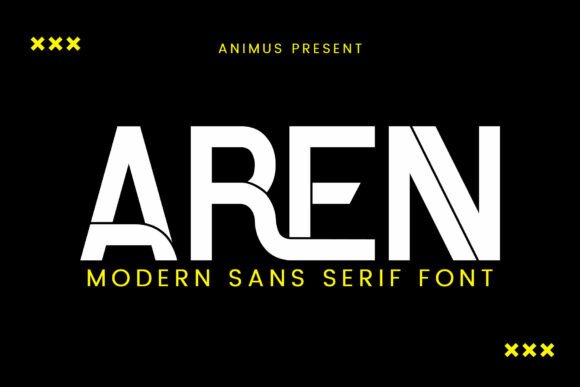
The Power of Arenn Font: Elevate Your Design with a Bold, Modern Sans Serif
I still remember the frustration of working on a project, hours spent crafting the perfect layout, only to realize that the font I chose just wasn’t cutting it. The client wanted something bold, something modern, something that would make their brand stand out in a crowded market. I was on a mission to find the perfect typeface, and that’s when I stumbled upon the Arenn Font. ✨
Designed to deliver a striking and progressive visual identity, Arenn Font is a bold, high-impact modern sans serif font that exudes a sense of seamless movement and contemporary precision. Its clean, geometric lines and balanced proportions make it an exceptional choice for tech-focused branding, industrial-style logos, sports marketing, and futuristic editorial headlines.
An Honest Review of Arenn Font
- ✅ Architectural strength: Arenn Font’s geometric lines and shapes give it a robust, sturdy feel that’s perfect for headlines and titles.
- ✨ Innovative letterforms: The font’s unique letterforms add a touch of creativity and playfulness to any design.
- 🔥 High-impact visibility: Arenn Font is designed to grab attention, making it perfect for bold statements and eye-catching headlines.
While Arenn Font is an exceptional typeface, there are a few minor quirks to be aware of: 🤔
- ⚠️ Limited legibility at small sizes: Like many bold fonts, Arenn can become difficult to read at very small sizes.
- ⚠️ Not ideal for body text: Arenn Font is best used for headlines and titles; it’s not designed for lengthy paragraphs of body text.
- Experiment with OpenType features, such as Stylistic Alternates, to add visual interest to your text.
The Designer Inspiration Behind Arenn Font
Arenn Font was designed with the goal of creating a bold, modern sans serif font that would meet the needs of contemporary designers. Inspired by the clean lines and geometric shapes of modern architecture, Arenn Font’s designer aimed to create a typeface that would exude a sense of seamless movement and contemporary precision.
Q: What is Arenn Font best used for?
A: Arenn Font is best used for bold headlines, titles, and statements where a high-impact visual identity is desired.
Q: Can I use Arenn Font for body text?
A: While Arenn Font can be used for short paragraphs of body text, it’s not ideal for lengthy blocks of text due to its bold and geometric design.
Q: Is Arenn Font suitable for digital interfaces?
A: Yes, Arenn Font is suitable for digital interfaces, including websites, mobile apps, and UI/UX design.
Q: Can I use Arenn Font for print design?
A: Absolutely! Arenn Font is perfect for print design, including brochures, posters, and business cards.